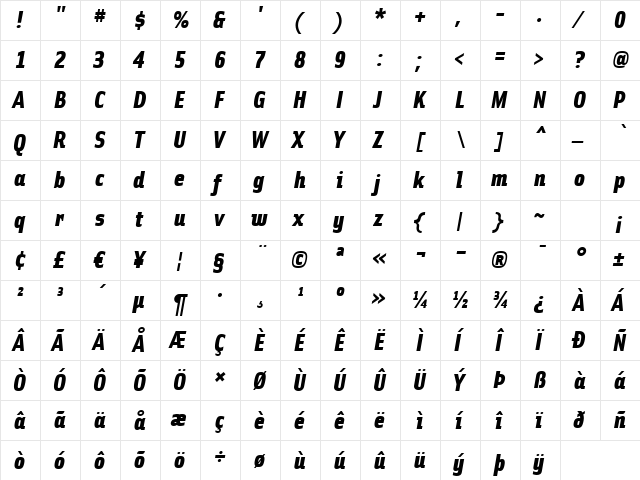
SolexBlackLiningItalic Regular
| Foundry | Emigre Inc. |
| Designer | Zuzana Licko |
Design Context for SolexBlackLiningItalic Typeface
SolexBlackLiningItalic is a composed and adaptable typeface that performs quietly and consistently across a wide range of design contexts. The dynamic lean of this cut emphasises speed and emphasis in any layout.